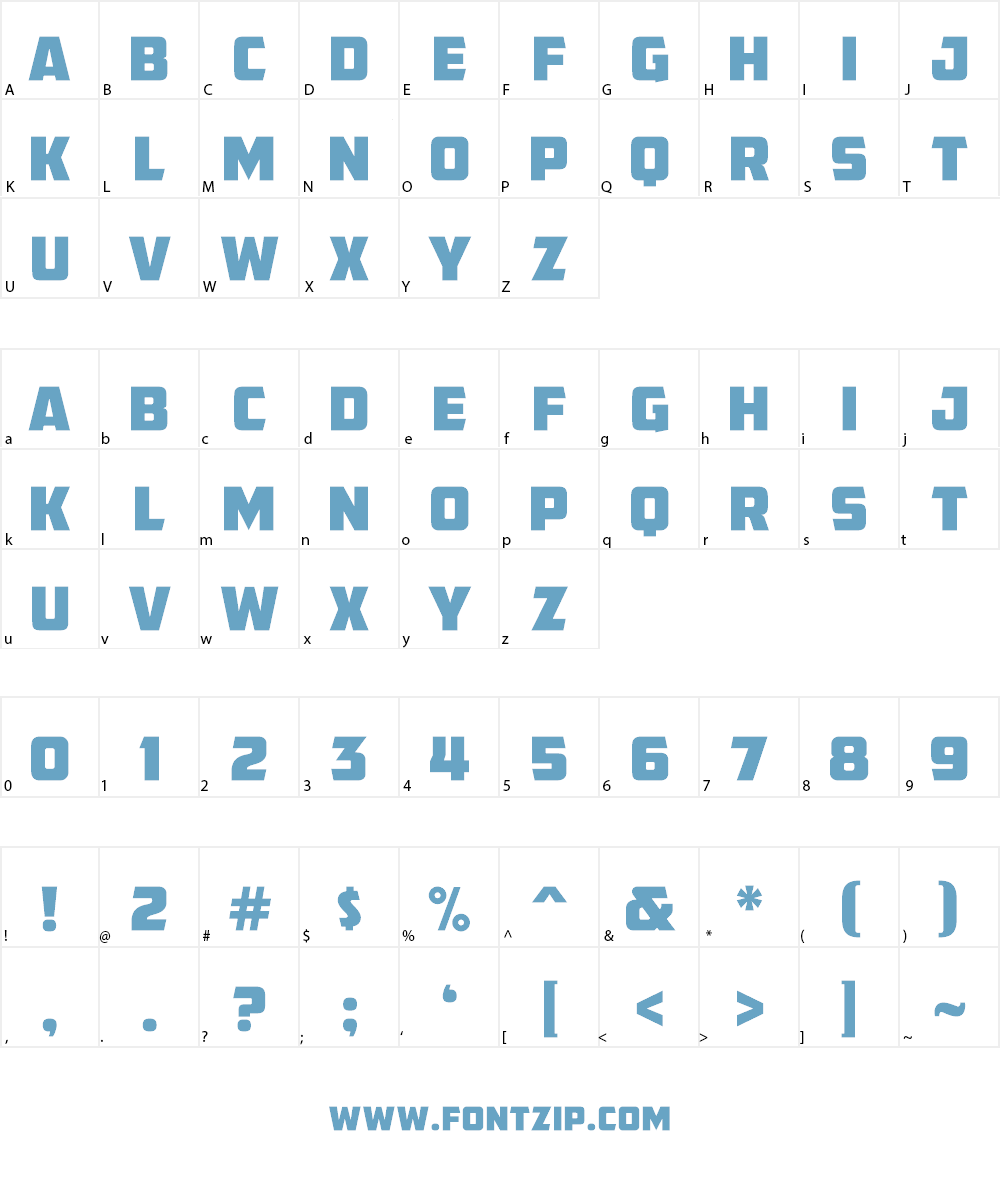
American Captain Eternal, aka: AMCAP Eternal, by Michael G. Adkins
If you like our American Captain font, you'll really enjoy its bolder, wider, huger (huger?) counterpart, AMCAP Eternal.